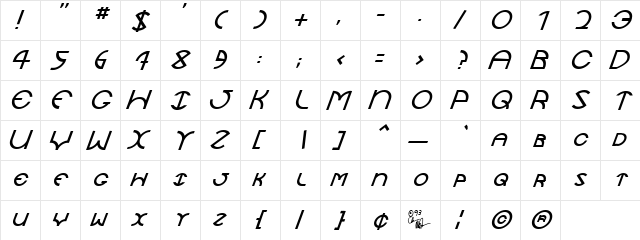
JaySetch Italic
Design Context for JaySetch Typeface
JaySetch is a composed and adaptable typeface that performs quietly and consistently across a wide range of design contexts. The slanted form adds forward momentum and visual energy.
Pro Tip: Use JaySetch for emphasis, pull quotes, and subheadings where its slanted energy can add rhythm to the layout.